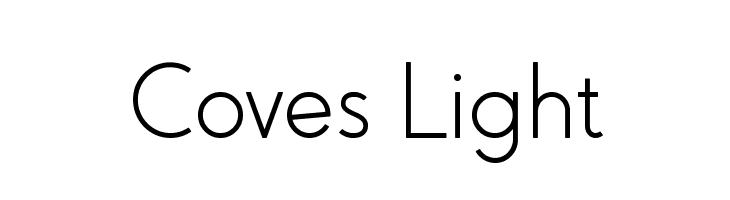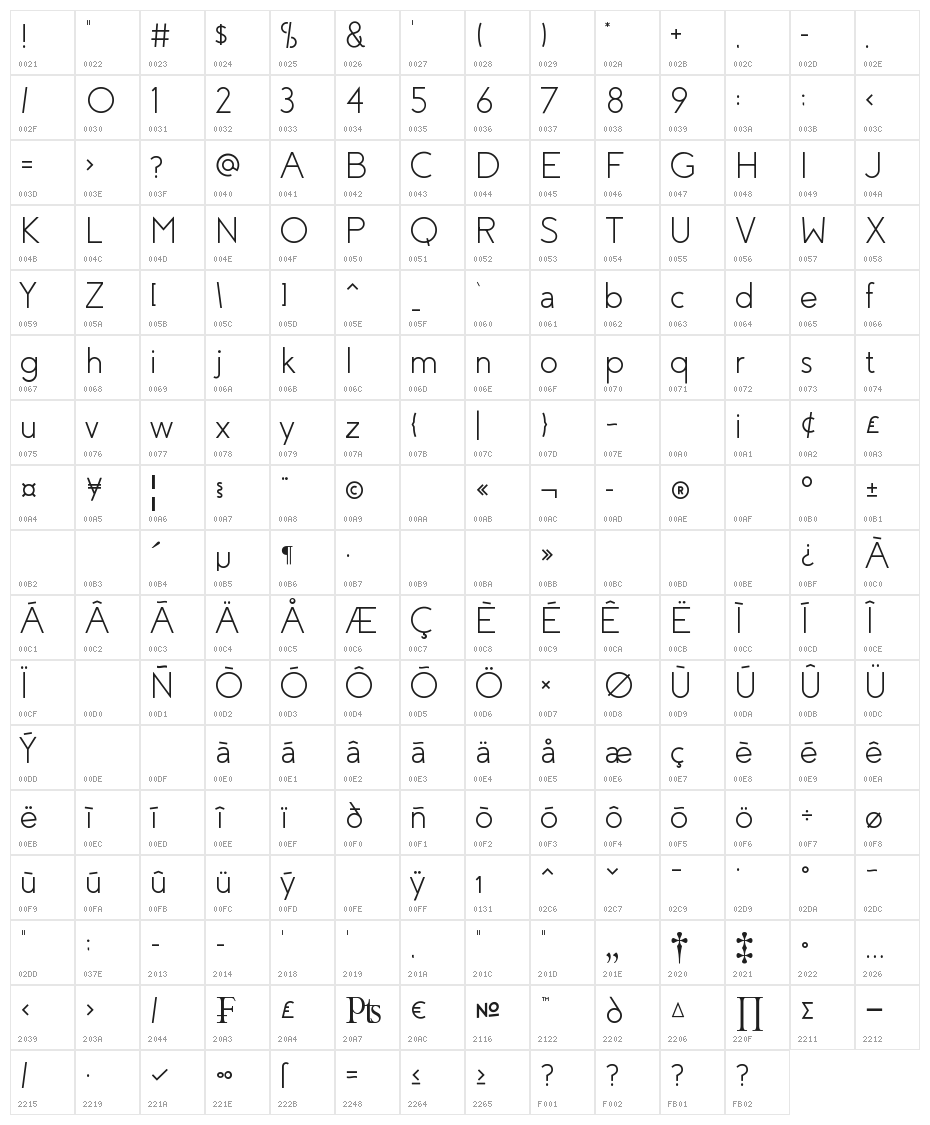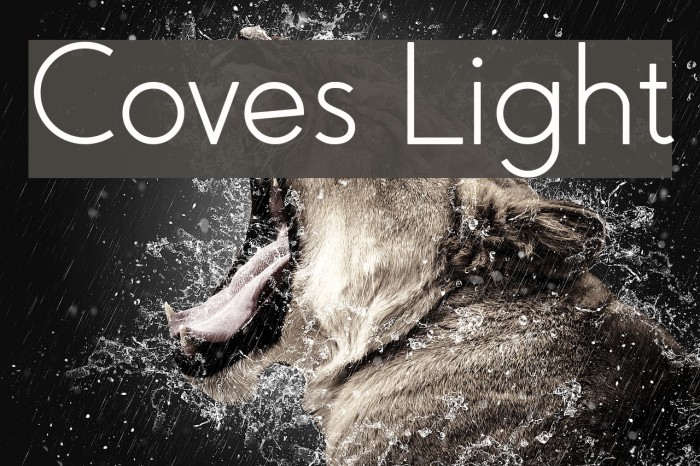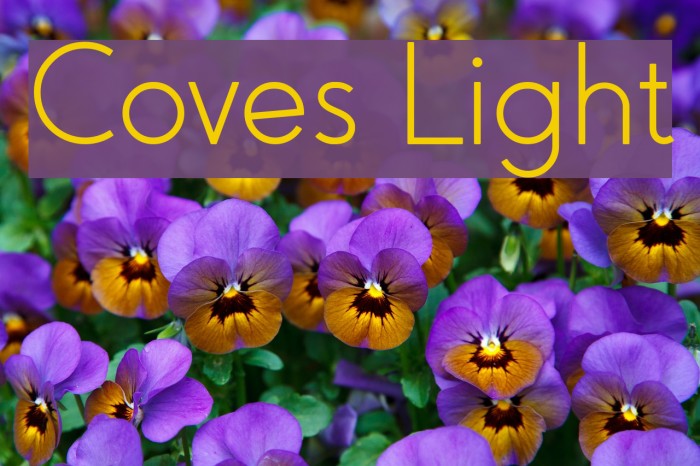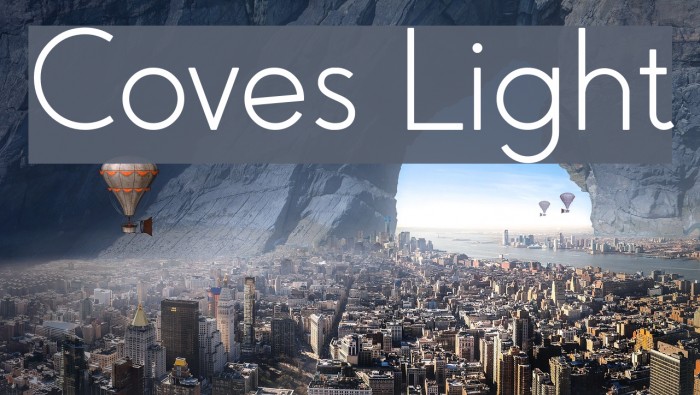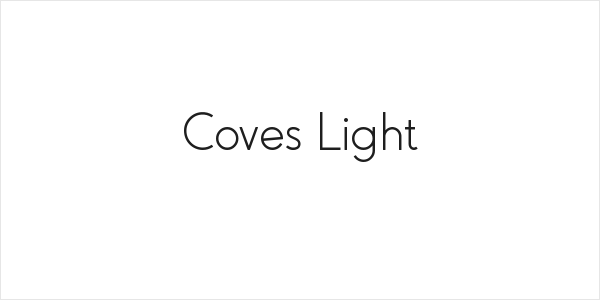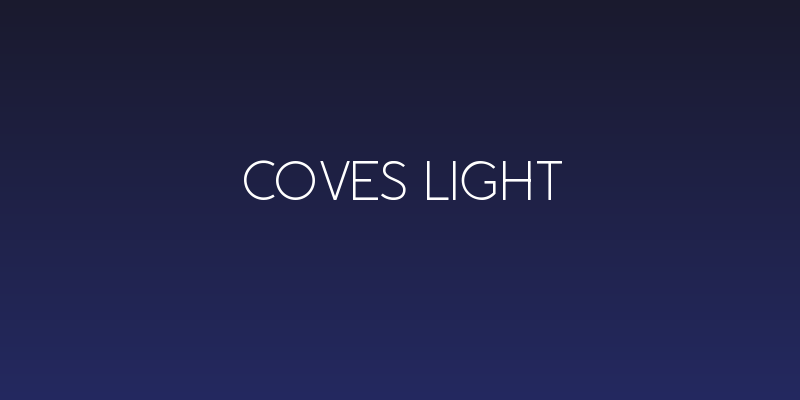
Coves Light Font
Coves Light Description
This font features a clean and modern sans-serif style with a light weight, making it ideal for minimalist designs. The characters are well-proportioned with a consistent stroke width, contributing to its sleek and elegant appearance. The uppercase letters are slightly taller than the lowercase, providing a subtle distinction that enhances readability. The numerals are clear and straightforward, matching the overall aesthetic of the alphabet. Special characters are included, maintaining the same design ethos, which ensures versatility in various applications. The font's simplicity and clarity make it suitable for a wide range of design projects, from digital interfaces to print media.
Use CaseHeadlines, Body text, Logos
Proposed ProjectsIdeal for branding, web design, editorial layouts, and minimalist posters.